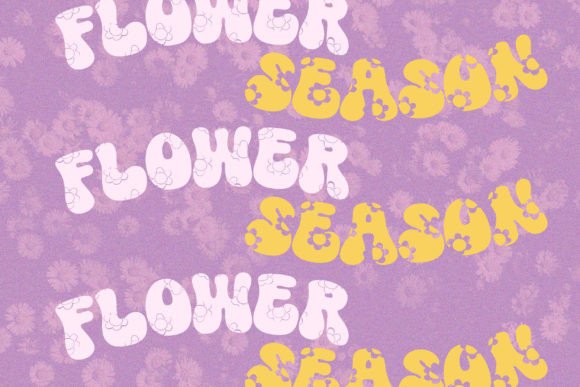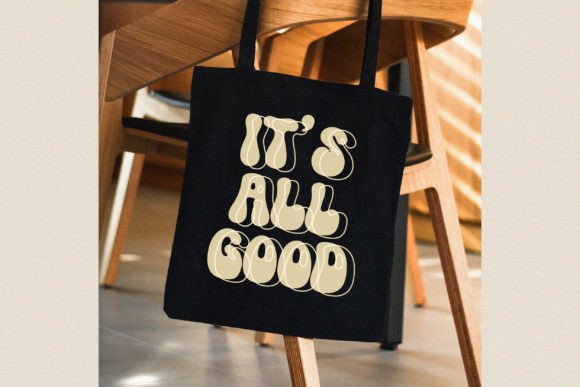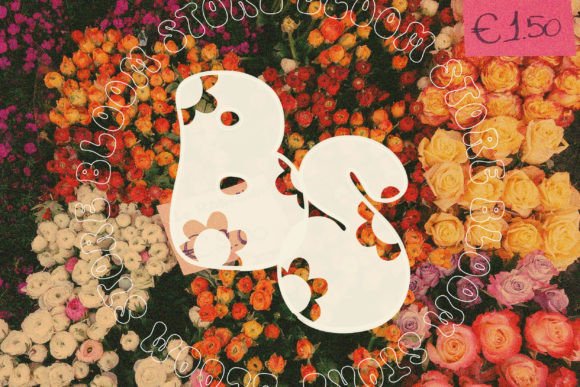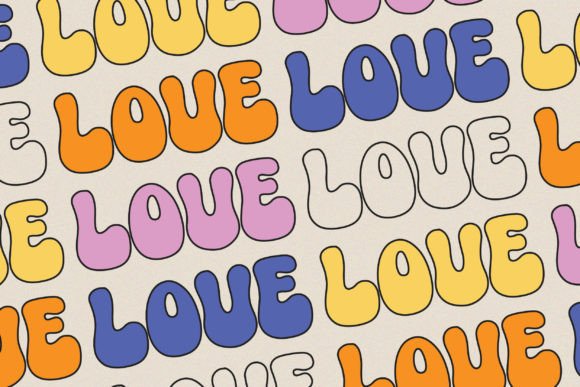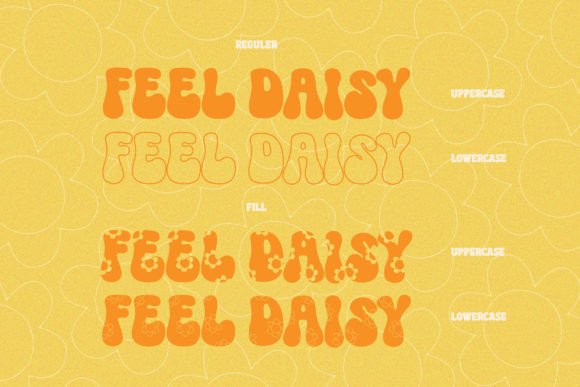
Introducing Feel Daisy Font: The Ultimate Groovy Typeface for Hippie Designs
Are you a designer or crafter looking for a font that embodies the free-spirited vibe of the hippie era? Look no further than Feel Daisy Font, a cute and retro display font that’s sure to add a touch of nostalgia to your designs. With its adorable groovy vibe, Feel Daisy is the perfect typeface for creating unique and eye-catching hippie designs that will transport your audience back to the 1960s and 70s.
The Story Behind Feel Daisy Font
Feel Daisy Font is a carefully crafted typeface that draws inspiration from the iconic fonts of the hippie era. Its creators wanted to bring back the carefree and playful spirit of the 1960s and 70s, and they’ve succeeded in creating a font that’s both nostalgic and modern. Whether you’re designing posters, t-shirts, or social media graphics, Feel Daisy Font is the perfect choice for adding a dash of hippie chic to your work.
What Makes Feel Daisy Font So Special?
So, what sets Feel Daisy Font apart from other fonts out there? Here are just a few features that make it a standout:
- Cute and Retro Design: Feel Daisy Font boasts a distinctly retro aesthetic that’s reminiscent of the psychedelic posters and flyers of the hippie era. Its cute and playful design makes it perfect for creating eye-catching graphics that will grab your audience’s attention.
- Groovy Vibe: The font’s groovy vibe is infectious, and it’s sure to add a touch of hippie chic to your designs. Whether you’re creating posters, t-shirts, or social media graphics, Feel Daisy Font will help you create a cohesive and stylish look.
- Unique and Playful: Feel Daisy Font is a one-of-a-kind typeface that’s sure to add a touch of whimsy to your designs. Its playful design makes it perfect for creating unique and eye-catching graphics that will stand out from the crowd.
How to Use Feel Daisy Font in Your Designs
Feel Daisy Font is incredibly versatile, and it can be used in a wide range of design applications. Here are just a few ideas to get you started:
- Posters and Flyers: Create eye-catching posters and flyers that will grab your audience’s attention. Feel Daisy Font is perfect for designing psychedelic posters, concert flyers, or promotional materials for your next event.
- T-Shirts and Apparel: Add a touch of hippie chic to your t-shirts and apparel with Feel Daisy Font. Its cute and retro design makes it perfect for creating stylish and eye-catching graphics.
- Social Media Graphics: Create engaging social media graphics that will transport your audience back to the 1960s and 70s. Feel Daisy Font is perfect for designing Facebook posts, Instagram graphics, or Twitter headers that will add a touch of nostalgia to your social media presence.
Tips and Tricks for Getting the Most Out of Feel Daisy Font
Here are just a few tips and tricks for getting the most out of Feel Daisy Font:
- Experiment with Colors: Feel Daisy Font looks amazing in bright, bold colors. Experiment with different color combinations to create eye-catching graphics that will grab your audience’s attention.
- Add Patterns and Textures: Add patterns and textures to your designs to give them an extra layer of depth and interest. Feel Daisy Font looks amazing with psychedelic patterns, florals, and geometric shapes.
- Mix and Match Fonts: Feel Daisy Font is a display font, so it’s best used in moderation. Mix and match it with other fonts to create a cohesive and stylish look.
| Font Name | Feel Daisy Font |
Feel Daisy Font is a unique and eye-catching typeface that’s perfect for designers and crafters who want to add a touch of hippie chic to their designs. Its cute and retro design, groovy vibe, and playful aesthetic make it a standout font that’s sure to transport your audience back to the 1960s and 70s. Whether you’re designing posters, t-shirts, or social media graphics, Feel Daisy Font is the perfect choice for creating unique and eye-catching hippie designs.